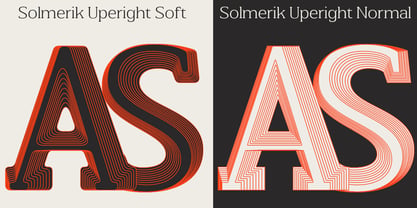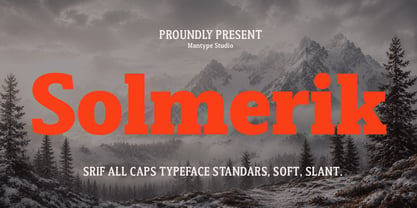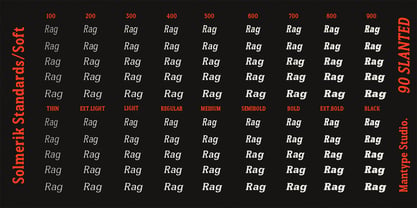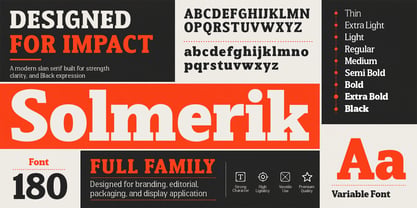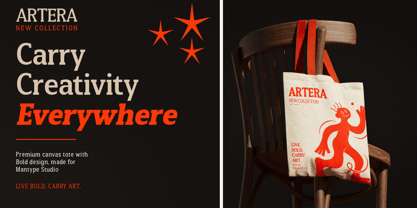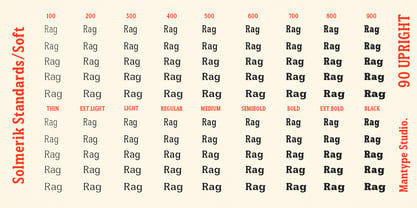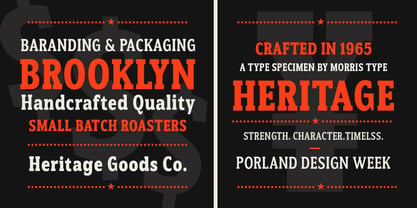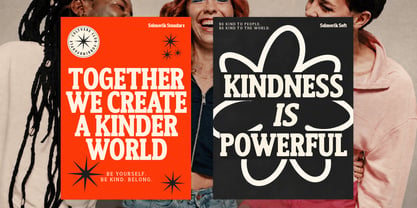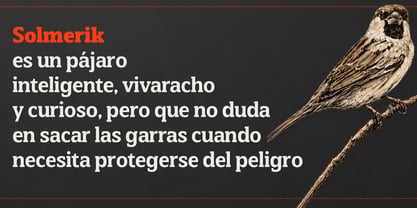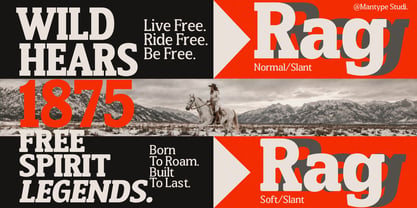
Solmerik
by Mantype Studio
The Solmerik Font Family was designed by Sulai Man and published by Mantype Studio. Solmerik contains 181 styles and family package options. More about this family
Solmerik is a slab serif display typeface designed to strike a balance between visual power, classic elegance, and modern legibility. With its large letterforms, robust proportions, and bold, block-shaped serifs, Solmerik creates a bold and authoritative impression without sacrificing elegance.
This typeface features a compact letter structure with low stroke contrast, resulting in a stable and consistent appearance at various sizes. The soft serif tips provide a friendlier character than traditional slab serifs, while the smooth terminal shapes maintain a premium and professional feel.